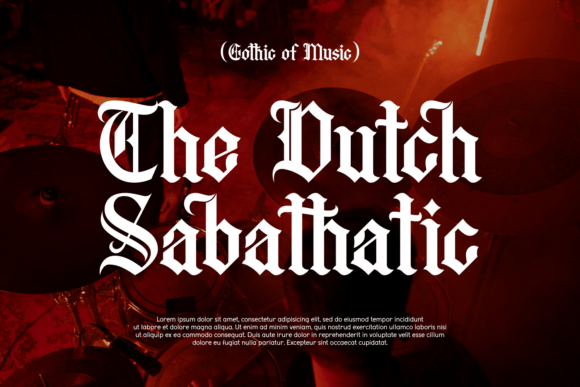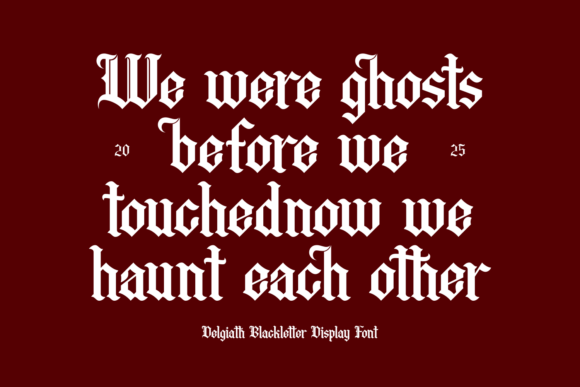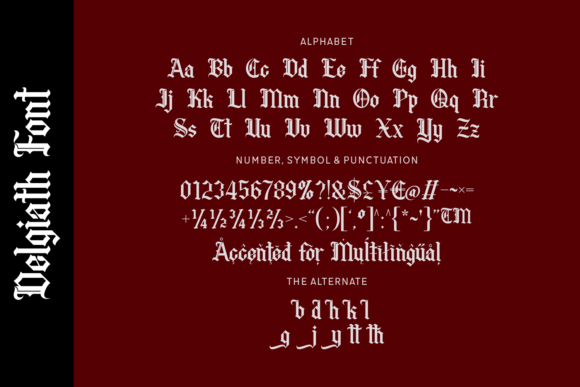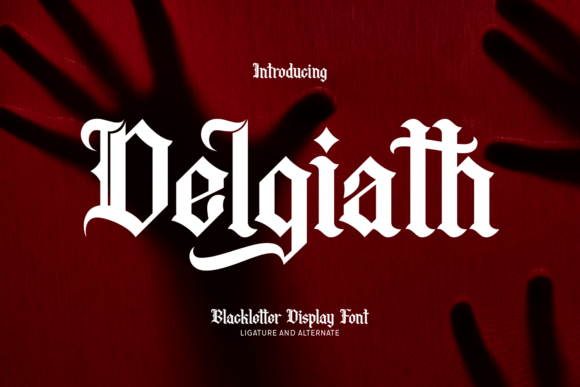
Introduction to Delgiath Font
A promotional image introducing β€œDelgiath,” a blackletter display font.
The font itself is a classic, ornate blackletter style, noted to include ligatures and alternates, making it perfect for fantasy, metal, or horror-themed projects .
Delgiath Font offers exceptional quality and versatility, making it a valuable addition to your design toolkit. Whether you’re creating for personal projects or commercial use, Delgiath Font delivers professional results.